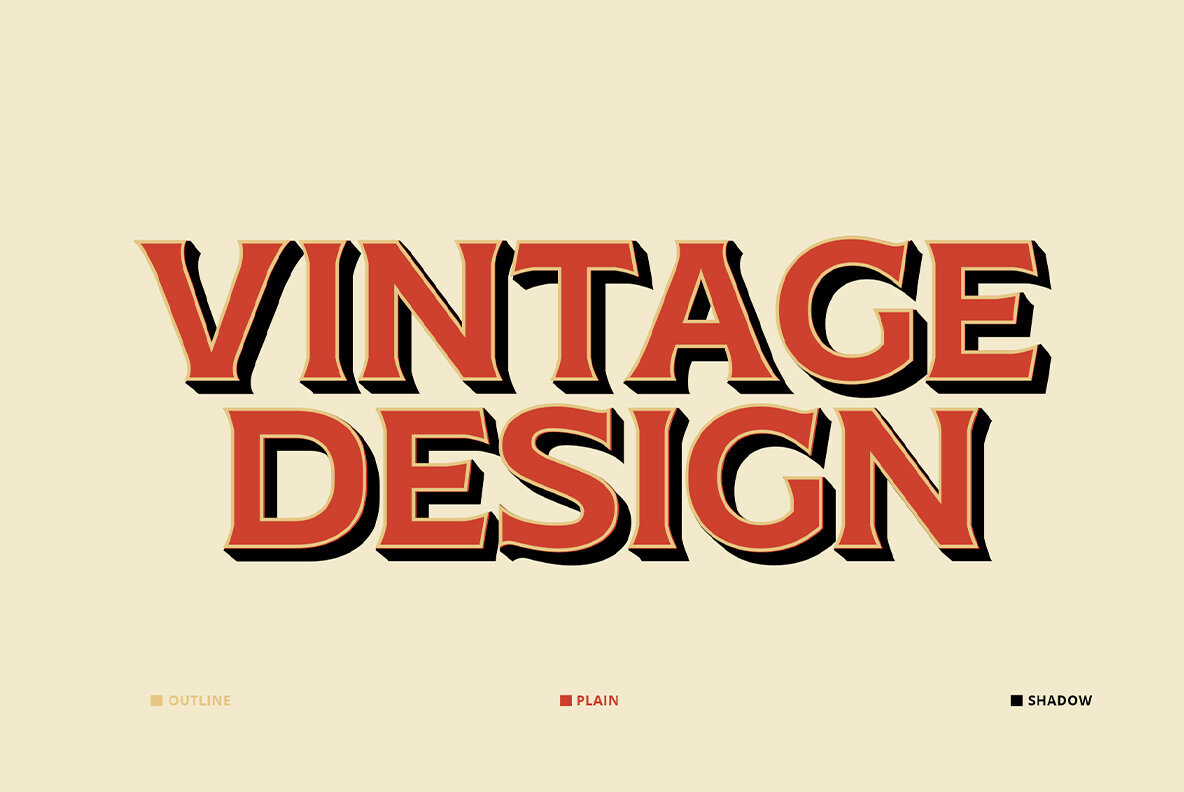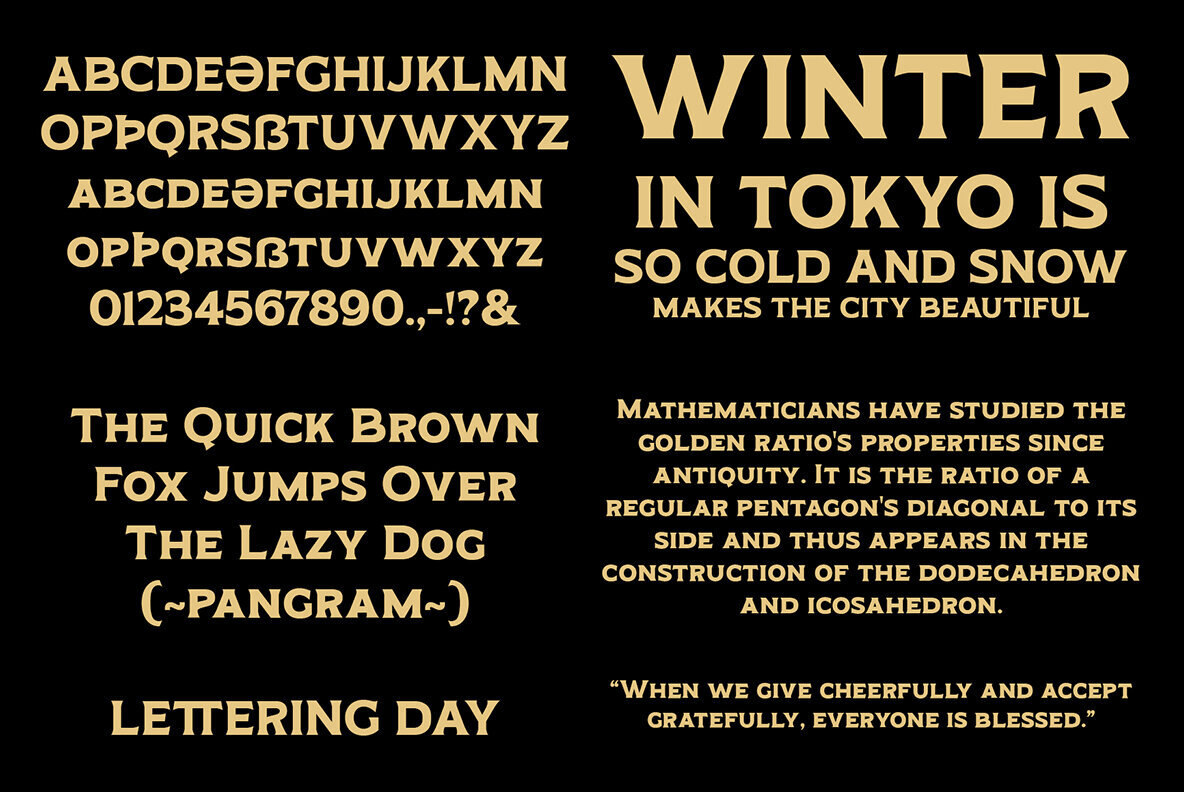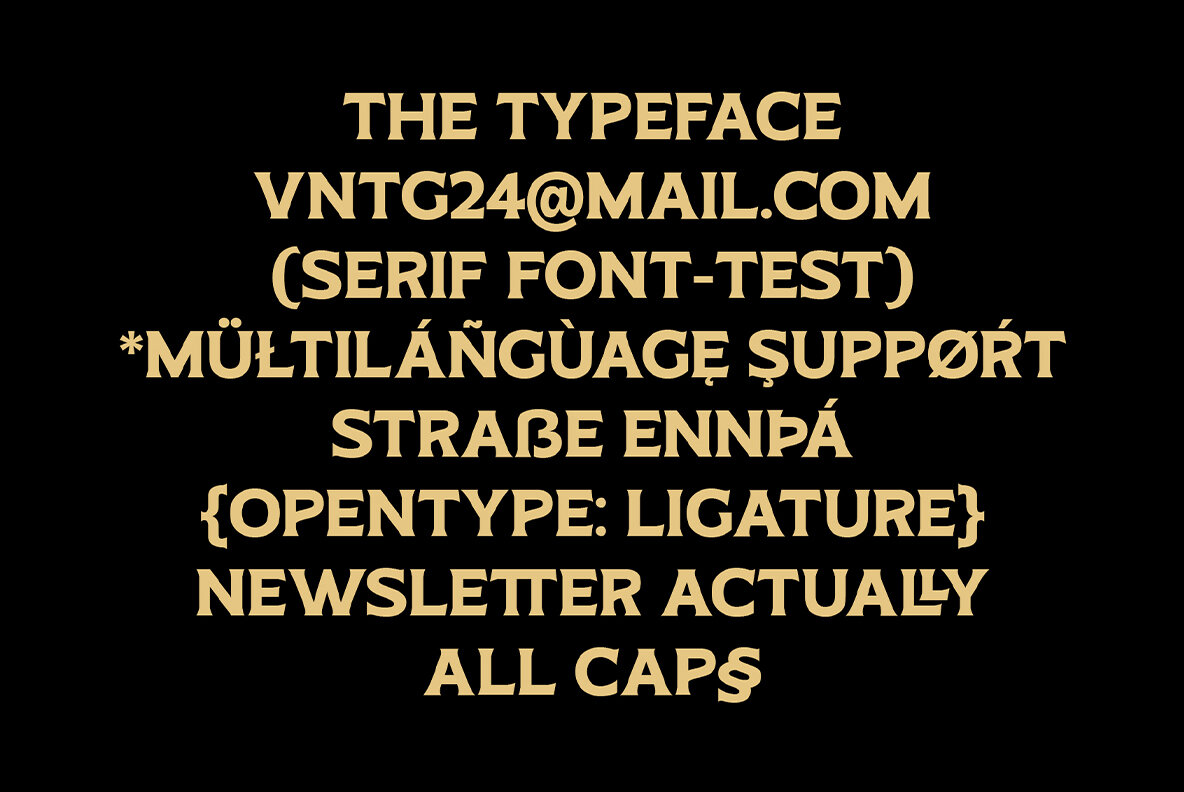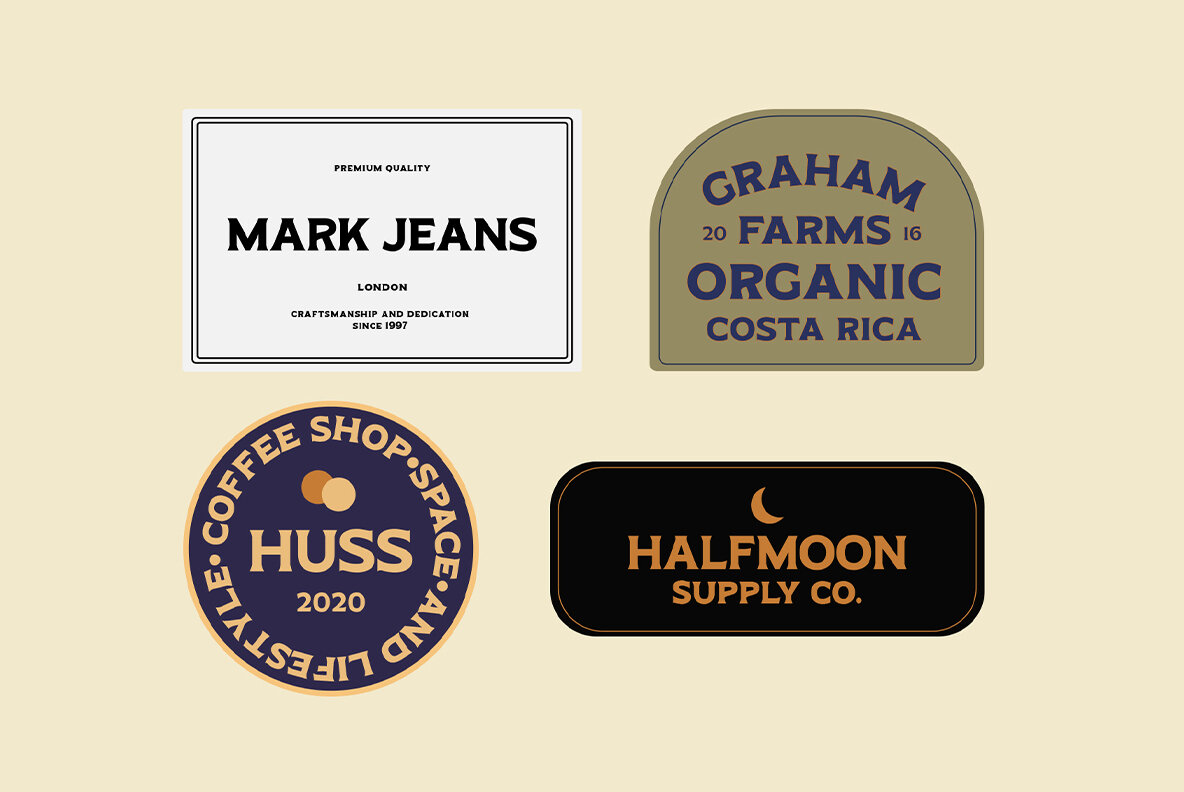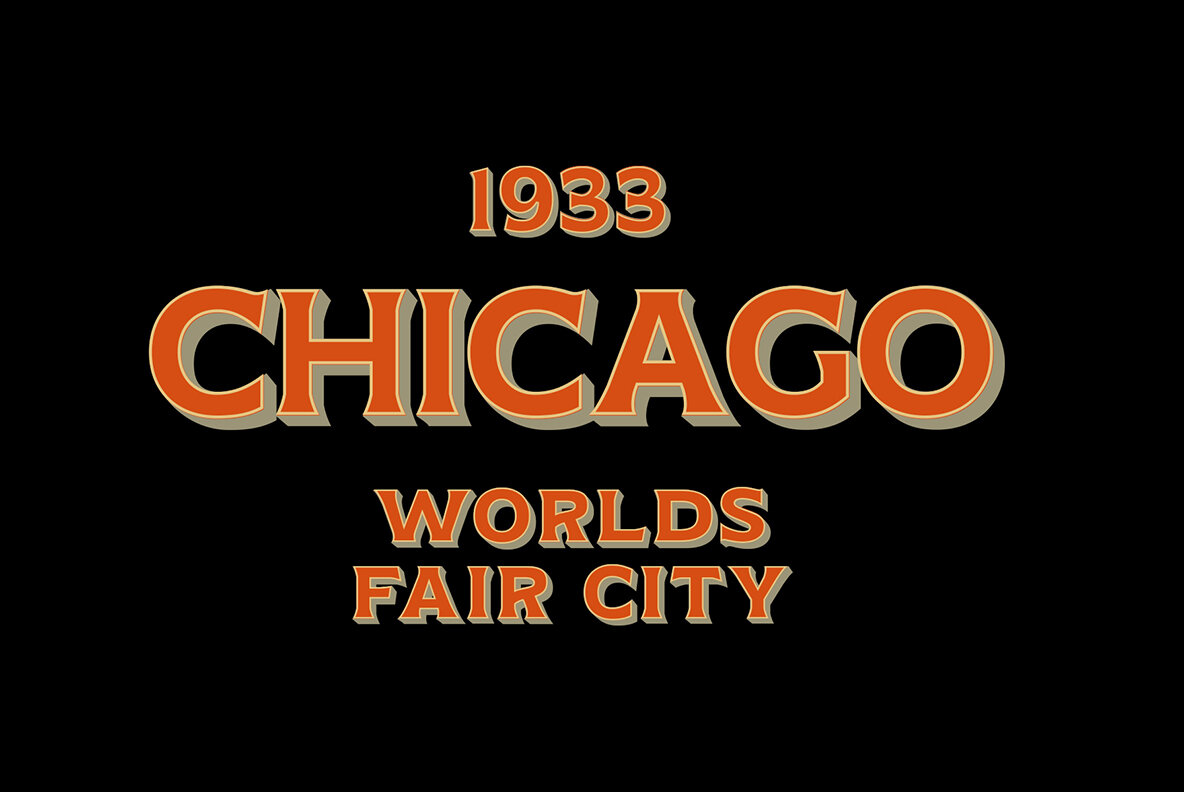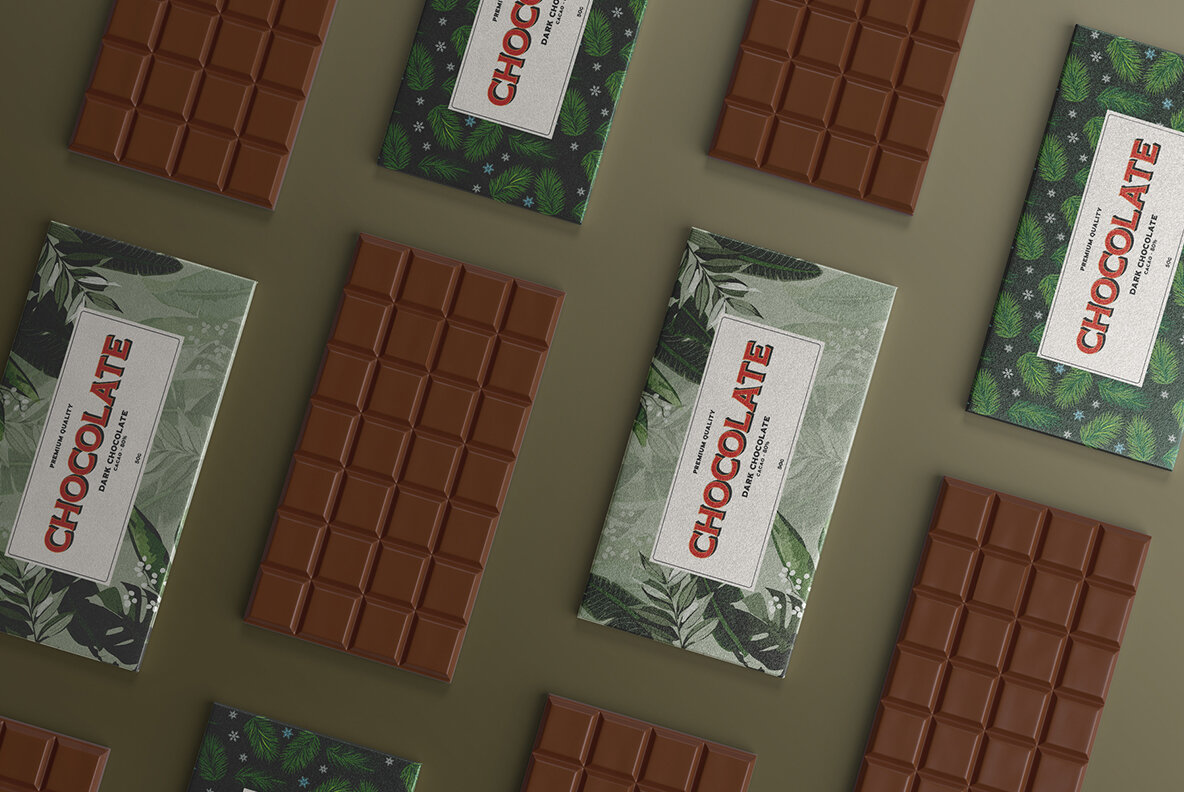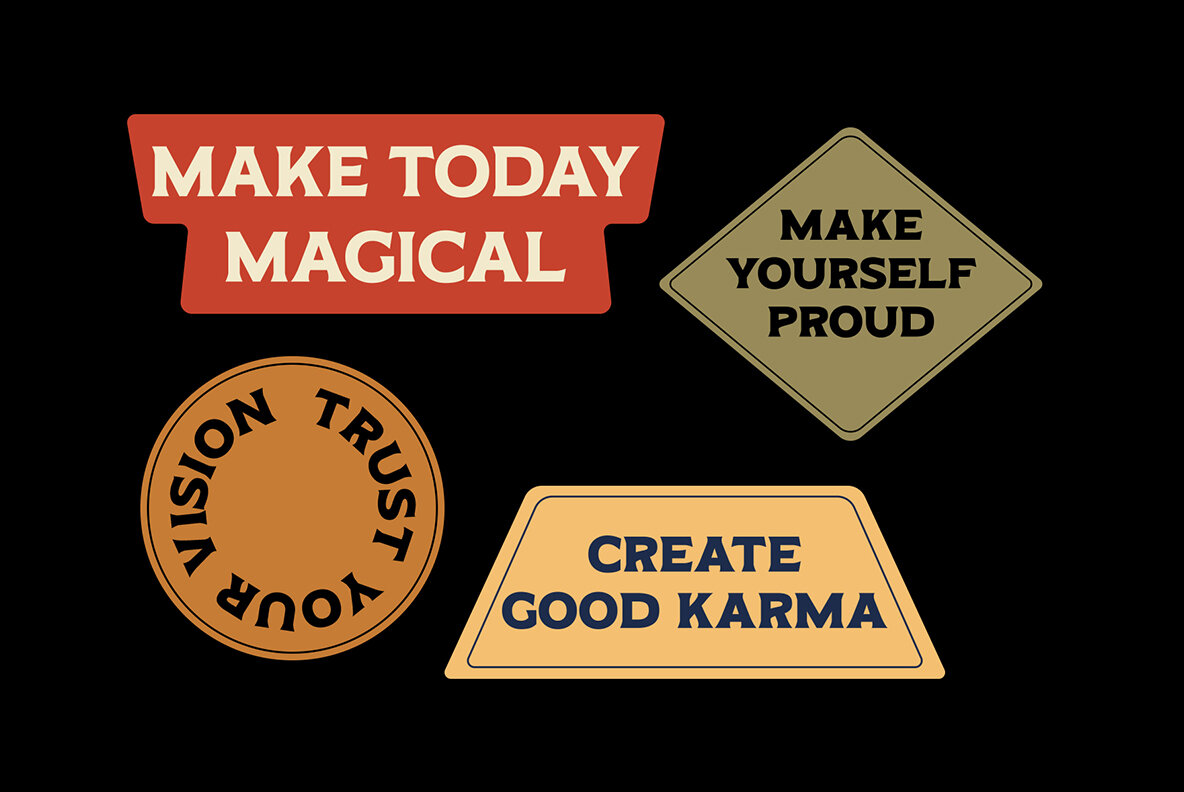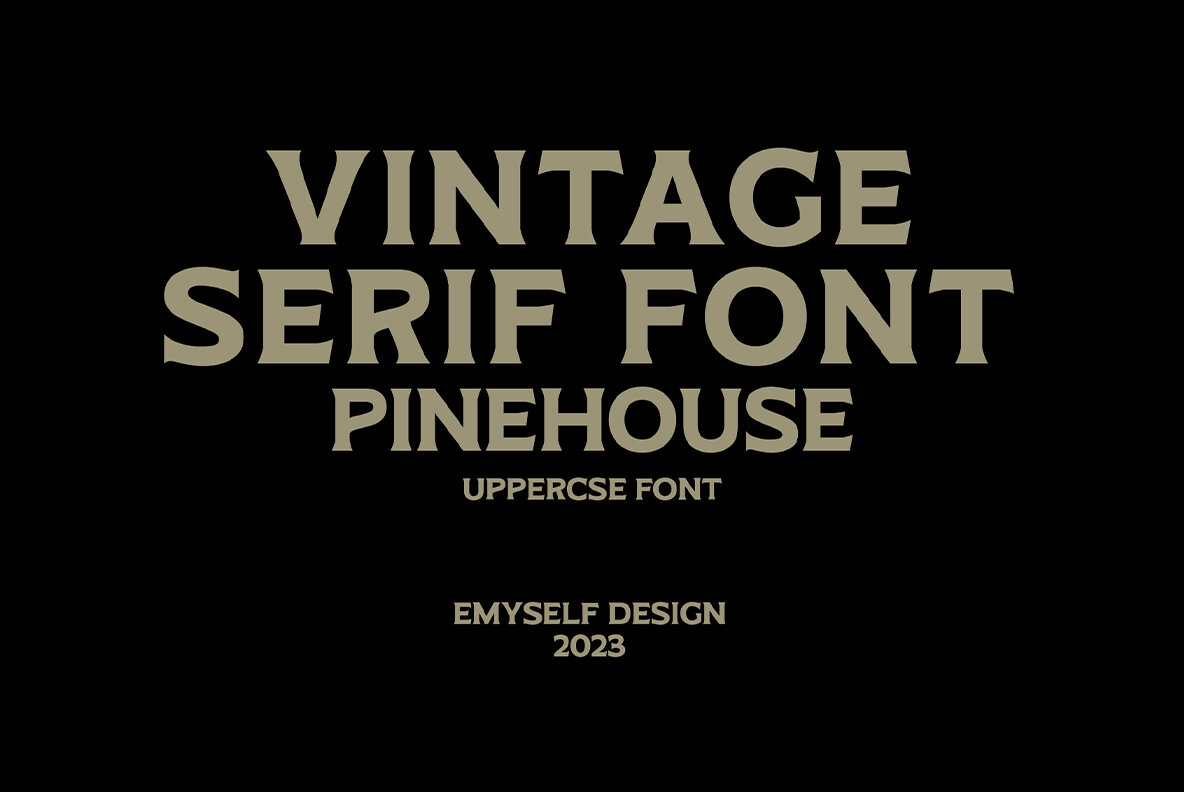
ED Pinehouse Font
Pinehouse is a font that exudes elegance and vintage style. With its three types of styles - plain, outline, and shadow - it's perfect for creating a 3D or hand-painted impression. This font features uppercase letters with different sizes and heights, combined with lowercase characters for a unique and versatile look.
Pinehouse is perfect for a wide range of creative projects, from logos and printed quotes to invitations, cards, product packaging, headers, letterhead, apparel, web design, magazines, books, and more. Its vintage style and unique character make it ideal for designs that require a touch of elegance and sophistication.
Pinehouse comes in three types of styles - plain, outline, and shadow - which can be combined to create a 3D or hand-painted effect. This feature makes it perfect for designs that require a high level of creativity and uniqueness.
Pinehouse is equipped with ligatures and multilingual support, ensuring that it's a font that's both functional and versatile. This feature makes it perfect for designs that require a wide range of characters and symbols, such as branding, advertising, and packaging.